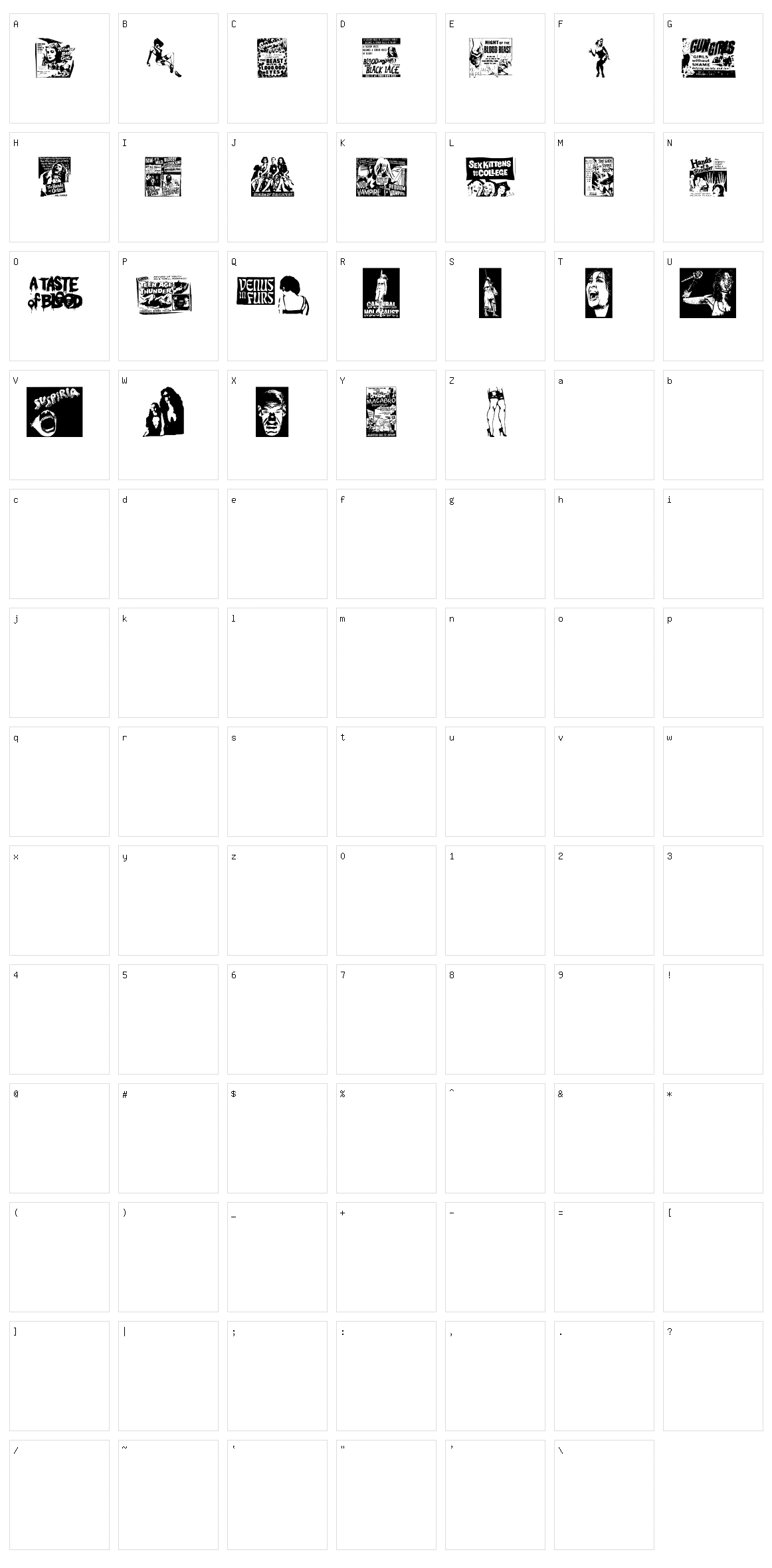
Made from old ad galleys and deteriorating magazines found in attics, B Movie Dings is probably the most useless dingbat font of all time.
Bear in mind that, due to the very complex nature of these images, this is one complicated font. I've tested it with every graphic program I have, but your milage may vary.
Breakdown of characters: (Font is in all caps)
A - Teenage Bad Girl
B - unknown shameless hussy
C - Beast w/Million Eyes
D - Blood & Black Lace
E - Night Of The Blood Beast
F - another unknown trollop
G - Gun Girls
H - The Hands Of Orlac
I - Double Feature: Hell's Bloody Devils & Satan's Sadists
J - Runaway Daughters
K - Double Feature: Nude Vampire & Requiem For A Vampire
L - Sex Kittens Go To College
M - She Gods Of Shark Reef
N - Hands Of A Stranger
O - A Taste Of Blood
P - Teen Age Thunder
Q - Venus In Furs
R - Cannibal Holocaust
S - hanging girl victim
T - screaming girl victim
U - girl about to not be a victim anymore
V - Suspiria
W - Italian babes, very low res
X - Rondo Hattan
Y - Macabro (Spanish)
Z - unknown hussy legs